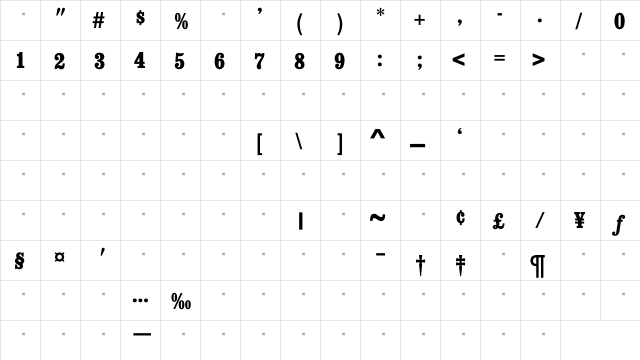
ConsortExtraBoldCondensedTab Regular Font Preview
Design Context for ConsortExtraBoldCondensedTab Typeface
ConsortExtraBoldCondensedTab offers clean, dependable letterforms without strong stylistic allegiance, making it a practical choice for designers who need flexibility. The heavy weight commands attention and anchors typographic hierarchies. The condensed width makes it efficient for tight spaces without sacrificing legibility.